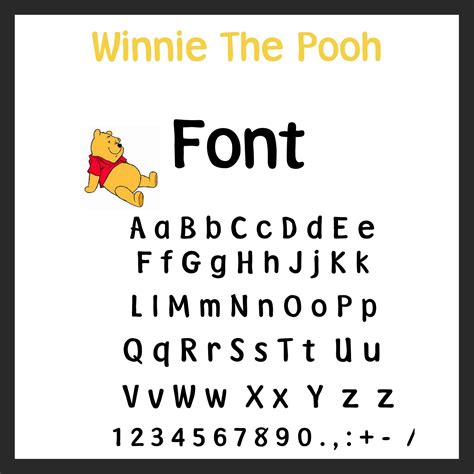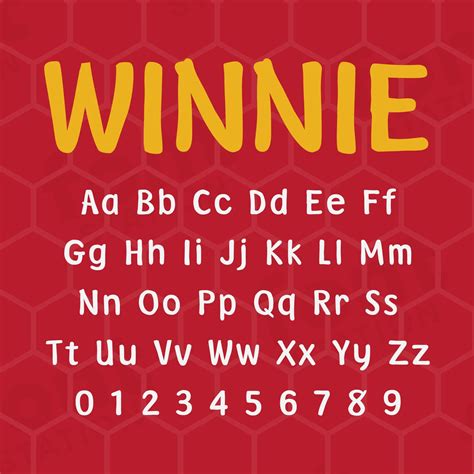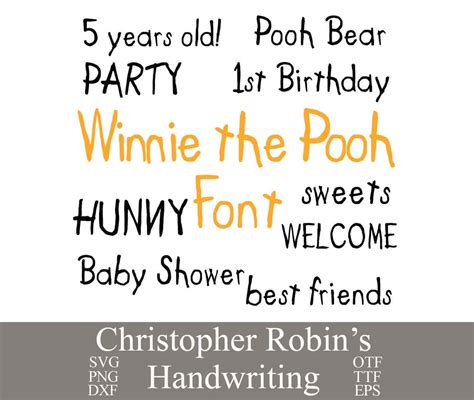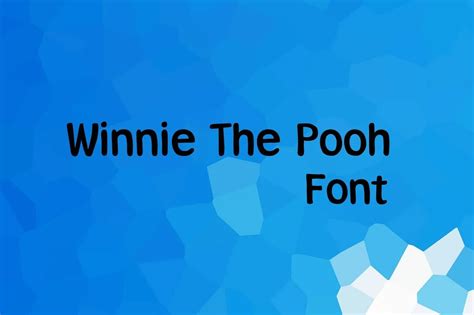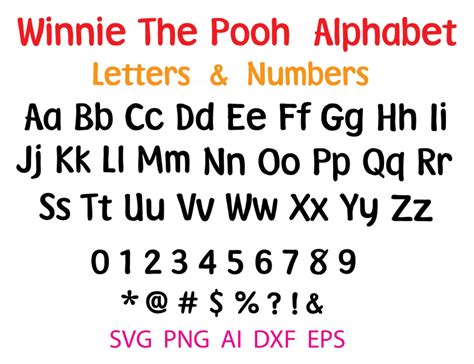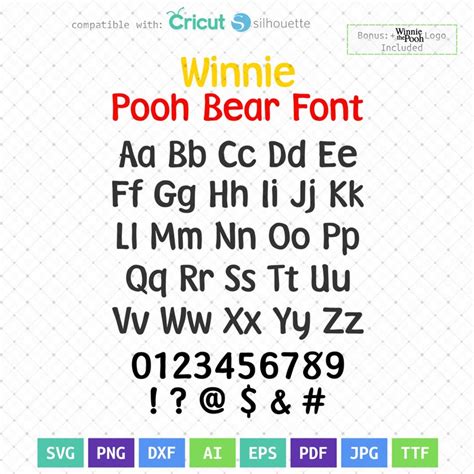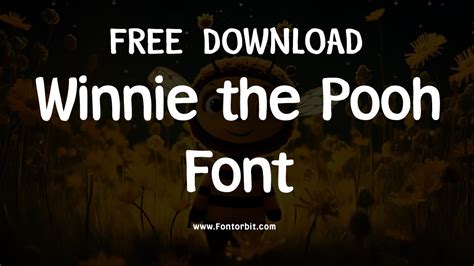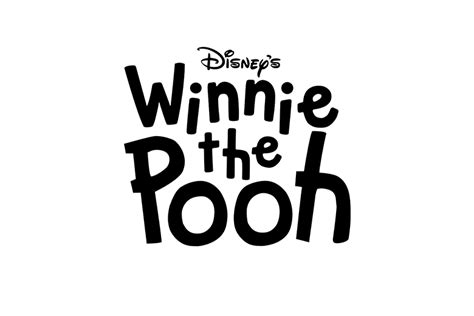
WINNIE THE POOH FONT
The world of typography offers a vast array of fonts, each with its own unique style and personality. One such font that has captured the hearts of many is the Winnie the Pooh font, a delightful and whimsical creation inspired by the beloved children's book character. This font is a testament to the enduring appeal of A.A. Milne's iconic bear and his friends.
The Winnie the Pooh font is characterized by its playful and charming design, often featuring rounded edges and a friendly, childlike aesthetic. It is a handwritten font that mimics the style of the original illustrations, bringing a sense of nostalgia and warmth to any text it adorns. This font is a true celebration of the imaginative world created by Milne, where honey pots and tree branches become the backdrop for profound adventures.
One of the key benefits of using the Winnie the Pooh font is its ability to evoke a sense of joy and innocence. Whether it's for a children's book, a whimsical greeting card, or a fun-themed project, this font adds a touch of magic and charm. Its unique style allows for creative expression, making it a favorite among designers and enthusiasts alike.